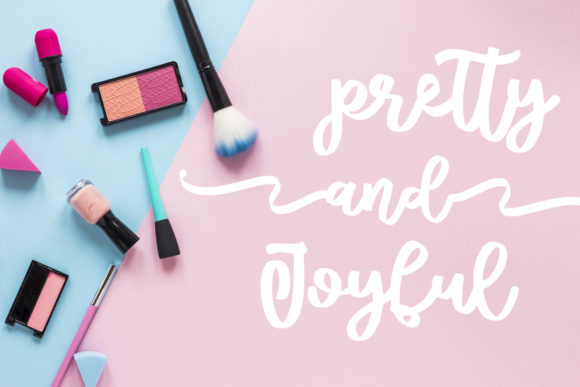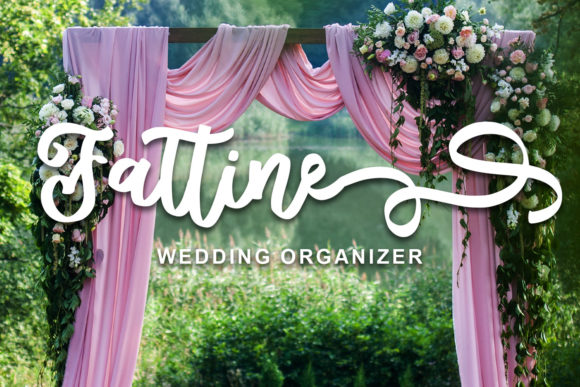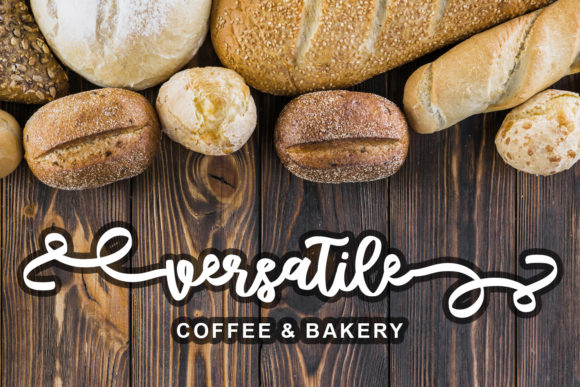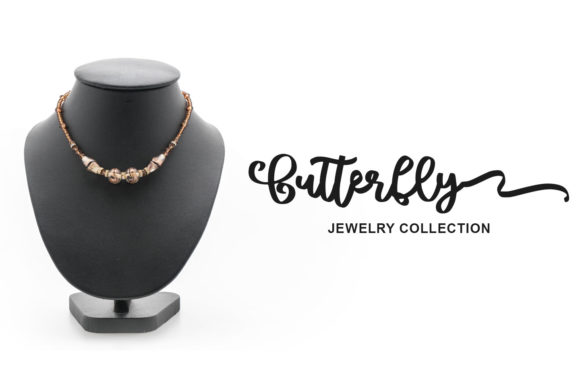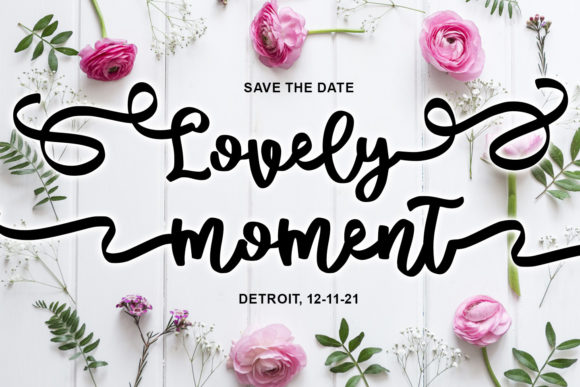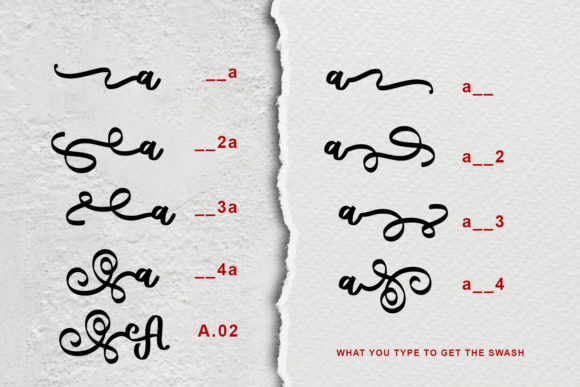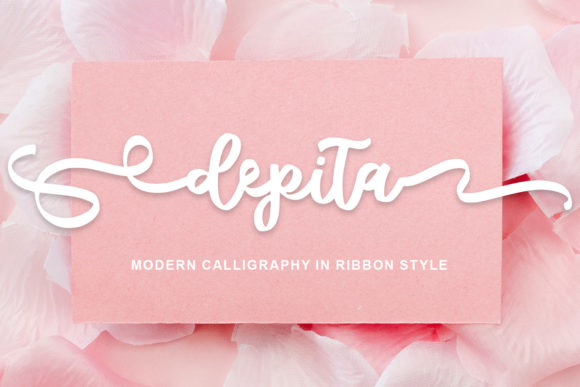
Introducing Depita Font: A Quirky Ribbon Script for Creative Projects
Are you tired of using the same old fonts for your creative projects? Look no further than Depita Font, a unique script font that adds a touch of quirkiness to any design. With its ribbon-style aesthetic, Depita is perfect for designers and crafters looking to add some personality to their work.
What Makes Depita Font Special?
Depita Font is a one-of-a-kind script font that boasts a distinctive ribbon-style design. This font is not your average script font – it’s a little bit quirky, and that’s what makes it so charming. Whether you’re working on a branding project, a craft tutorial, or a digital design, Depita Font is sure to make your work stand out.
One of the best things about Depita Font is that it’s PUA (Private Use Area) encoded. This means that you can access all of the glyphs and swashes with ease, giving you complete creative control over your design. With PUA encoding, you can easily insert special characters, ligatures, and other unique elements that will take your design to the next level.
Depita Font is incredibly versatile, and can be used in a wide variety of contexts. Whether you’re designing a logo, creating a social media graphic, or crafting a handmade project, Depita Font is sure to adapt to your needs. Its ribbon-style design makes it perfect for:
- Digital graphics and social media posts
- Craft tutorials and DIY projects
- Stationery and paper crafting
Adding a Touch of Whimsy to Your Design
Depita Font is the perfect way to add a touch of whimsy to your design. Its quirky ribbon-style aesthetic is sure to delight your audience, and its versatility makes it easy to use in a variety of contexts. Whether you’re looking to create a playful brand identity or add some personality to your digital design, Depita Font is the perfect choice.
Tips for Using Depita Font
Here are a few tips for getting the most out of Depita Font:
- Experiment with different sizes and colors to find the perfect look for your design
- Use Depita Font in combination with other fonts to create a unique and eye-catching design
- Take advantage of the PUA encoding to access special characters and glyphs
- Don’t be afraid to get creative and try new things – Depita Font is all about experimentation and self-expression!
In conclusion, Depita Font is a unique and versatile script font that’s perfect for designers and crafters looking to add some personality to their work. With its quirky ribbon-style aesthetic and PUA encoding, Depita Font is sure to become a go-to font in your design arsenal. So why wait? Download Depita Font today and start adding a touch of whimsy to your designs!